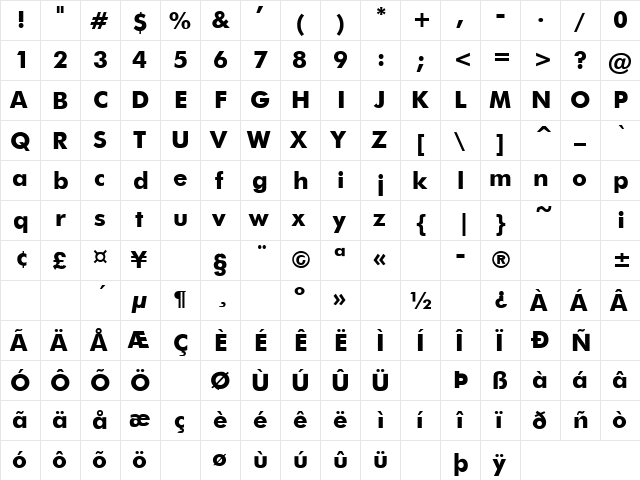
Heartbreaker 2 Regular
Heartbreaker 2 takes a measured approach to typography — its balanced proportions and neutral character make it a reliable workhorse for both digital and print work.